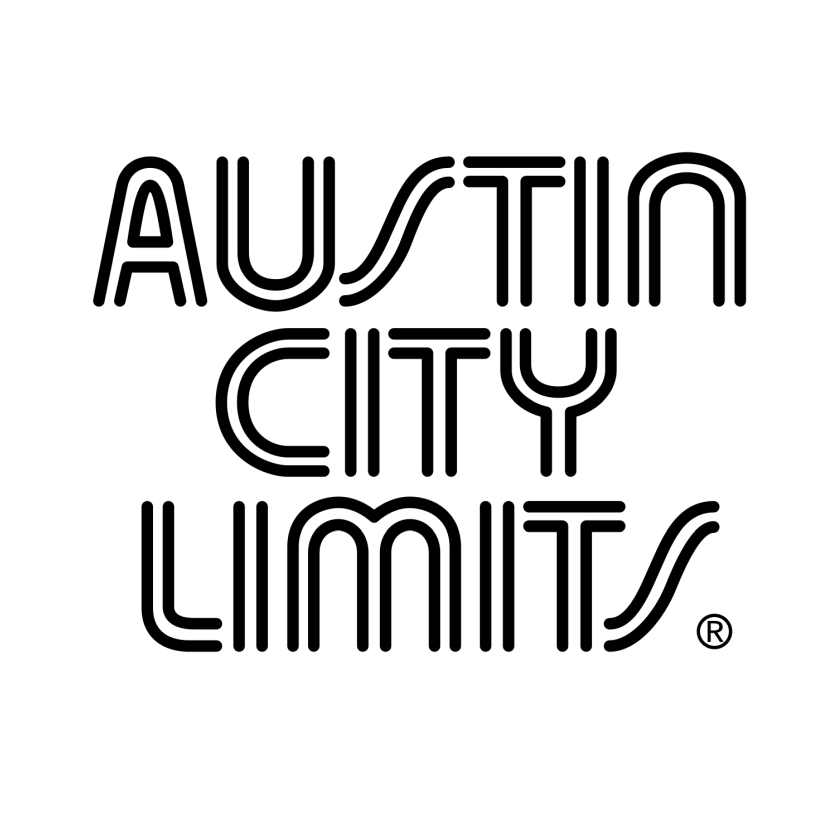
Austin City Limits Font
Fonts in UseAustin City Limits (ACL) is a long-running American TV music program that records live performances in front of an audience at the Moody Theater in Austin, Texas. It has been on air since 1974, making it the longest-running music program in American TV history.
The ACL logo features Skin & Bones, a display typeface inspired by the Bauhaus movement and created by Douglas F. Jones for Visual Graphics Corporation during the phototypesetting era. Although FontBank, Inc. released a digital version called Skinny in the early 1990s, it had incomplete characters.